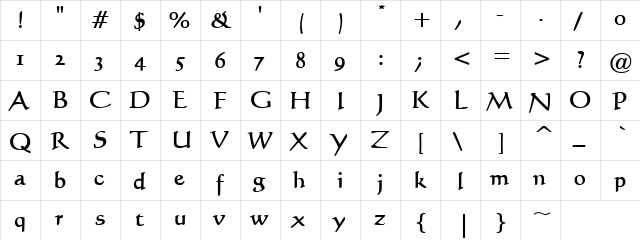
Camy Regular
Design Context for Camy Typeface
Camy is a composed and adaptable typeface that performs quietly and consistently across a wide range of design contexts.